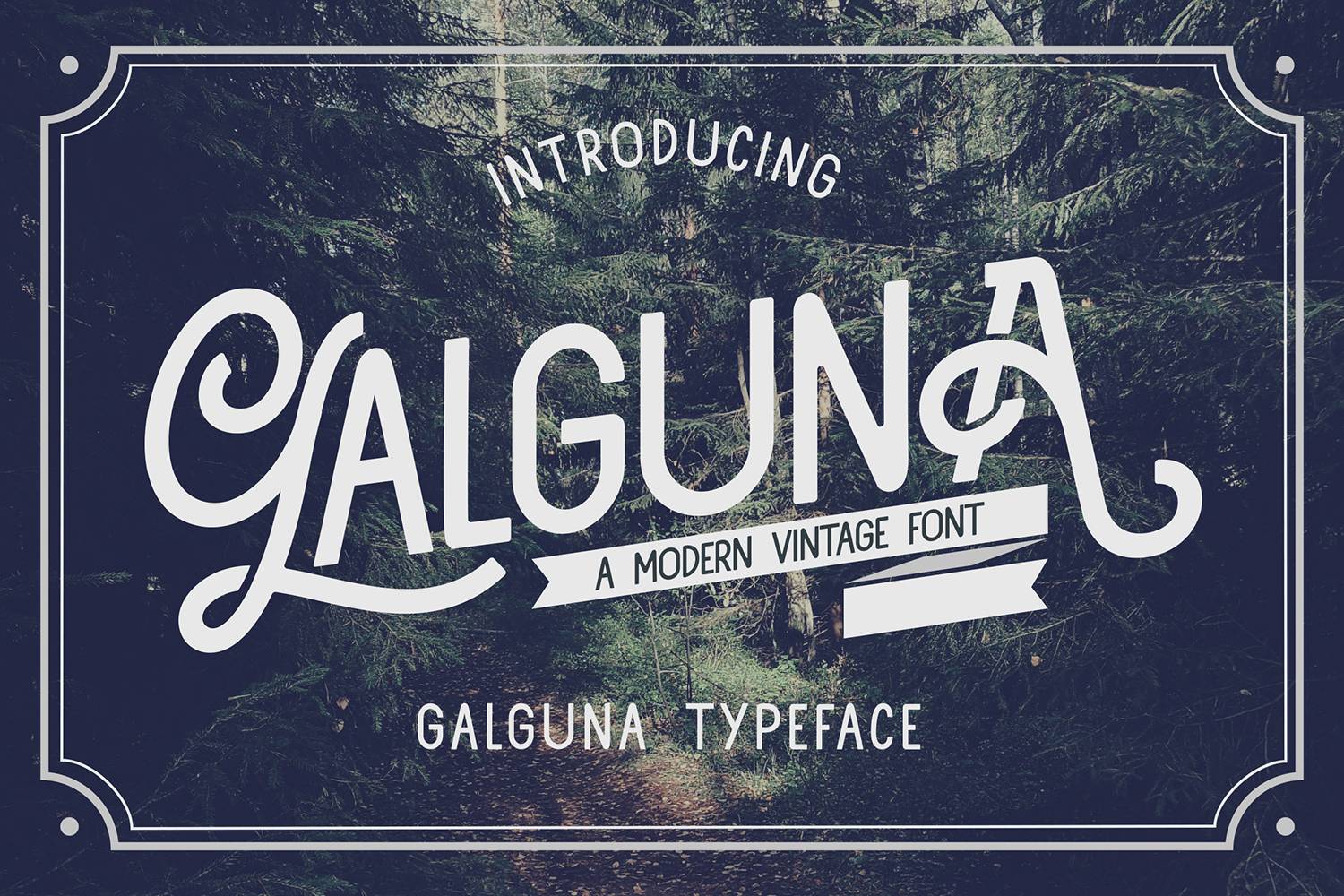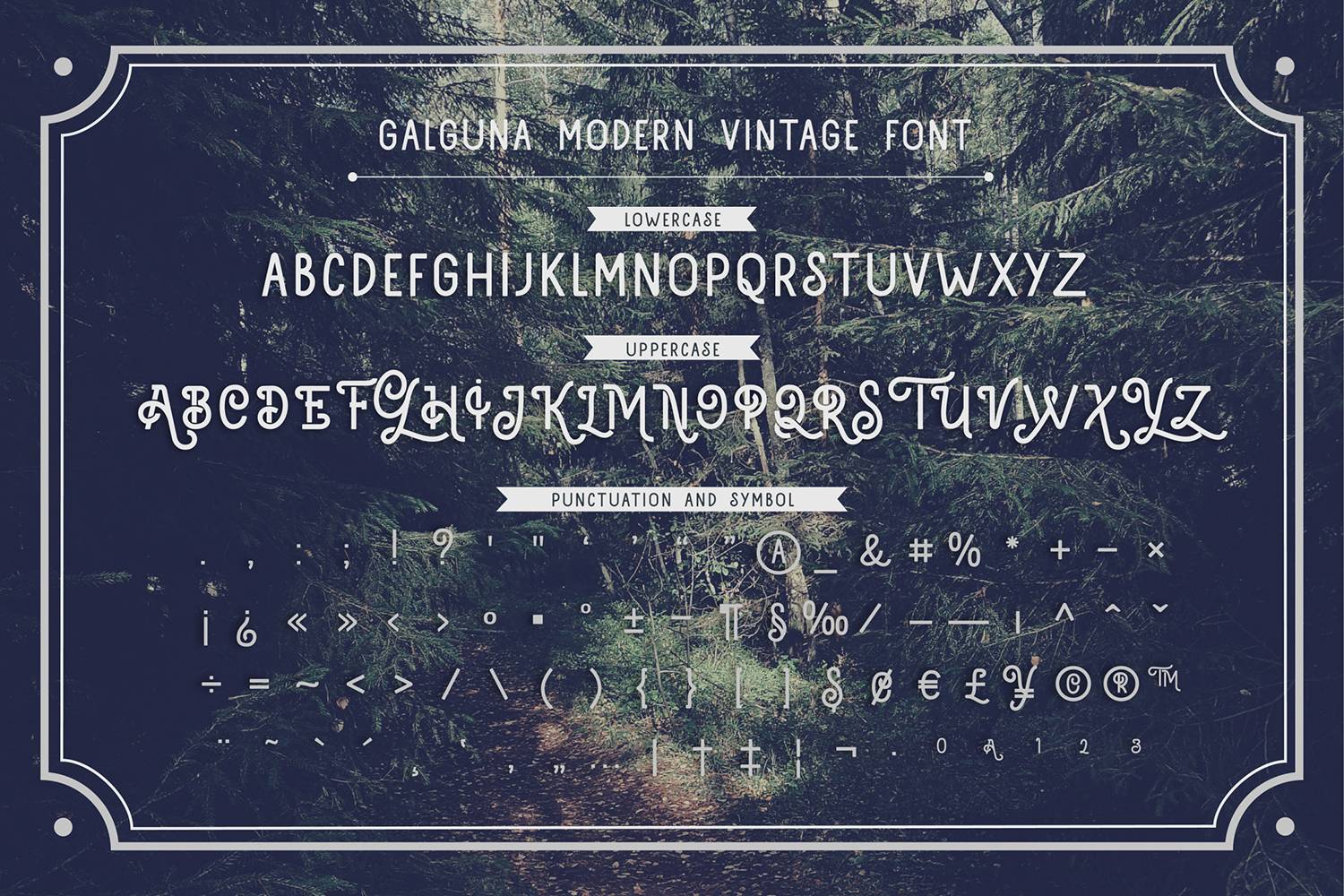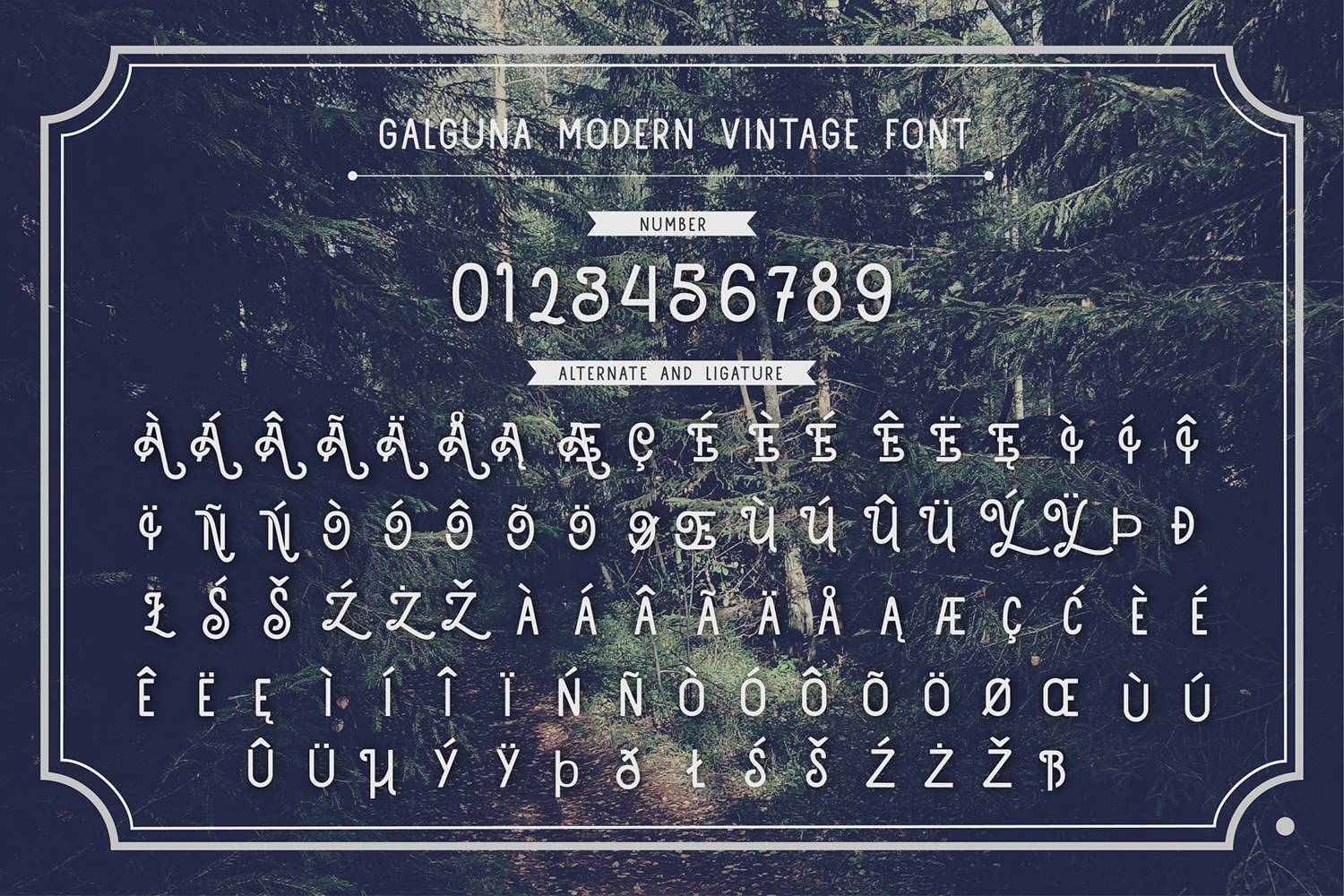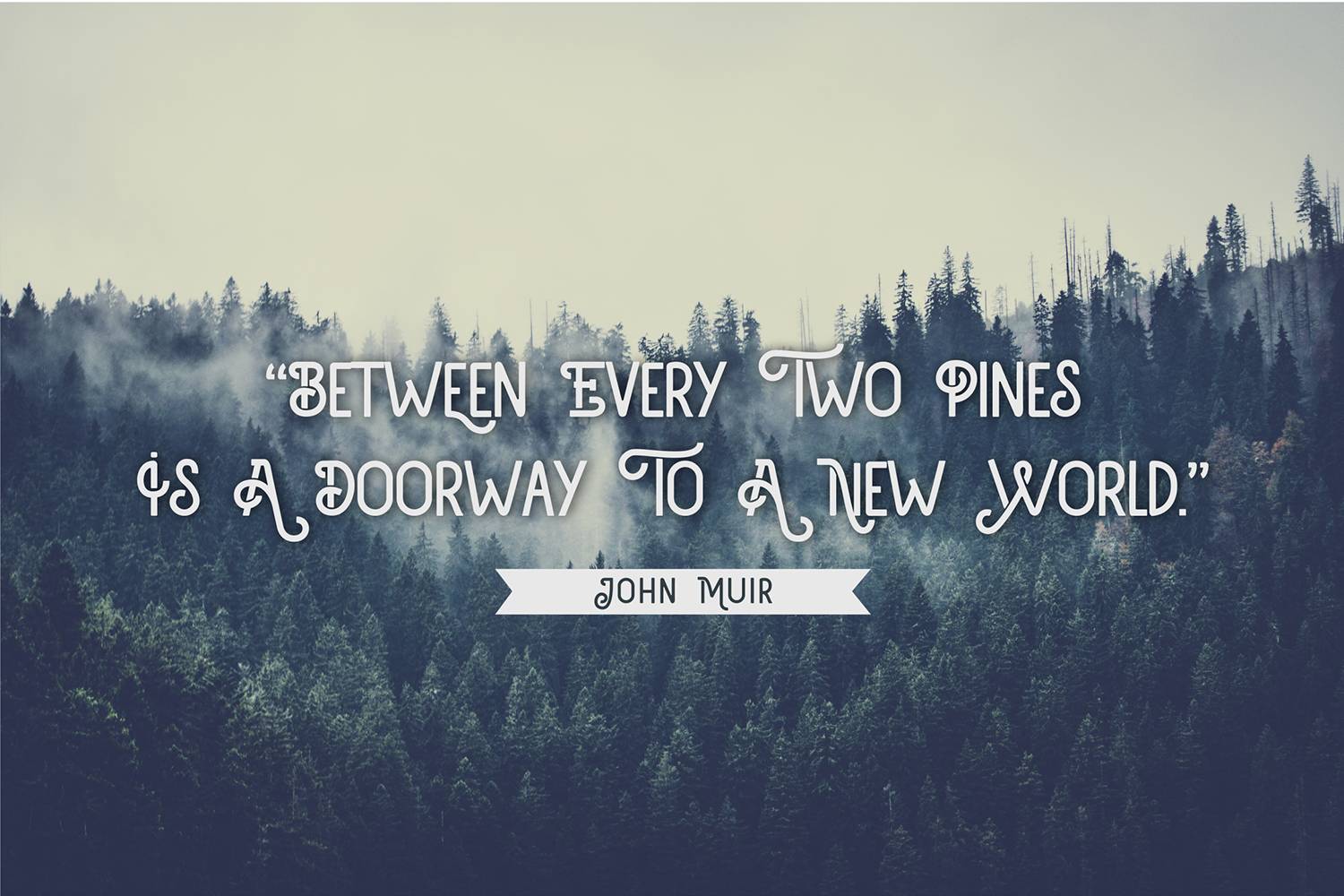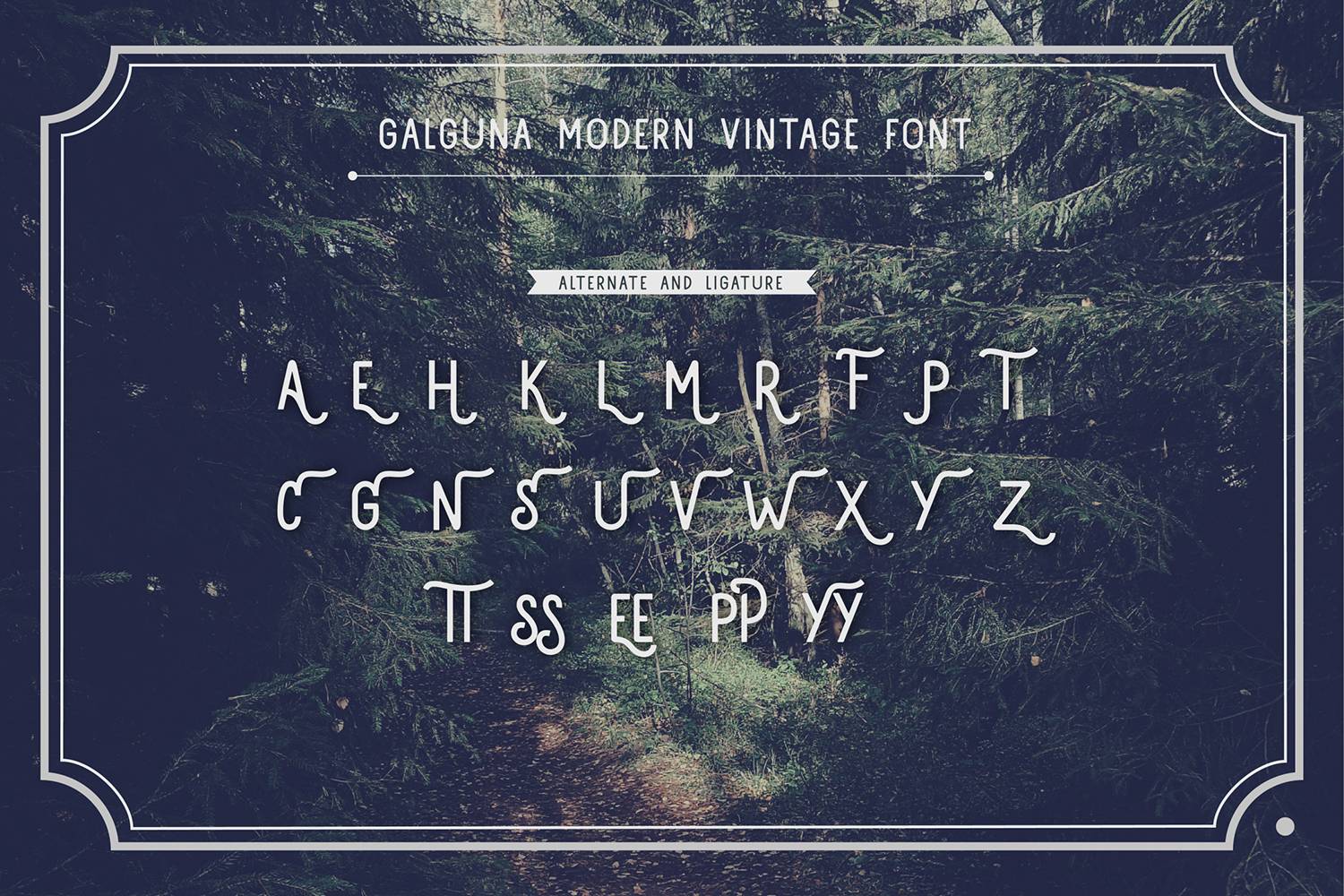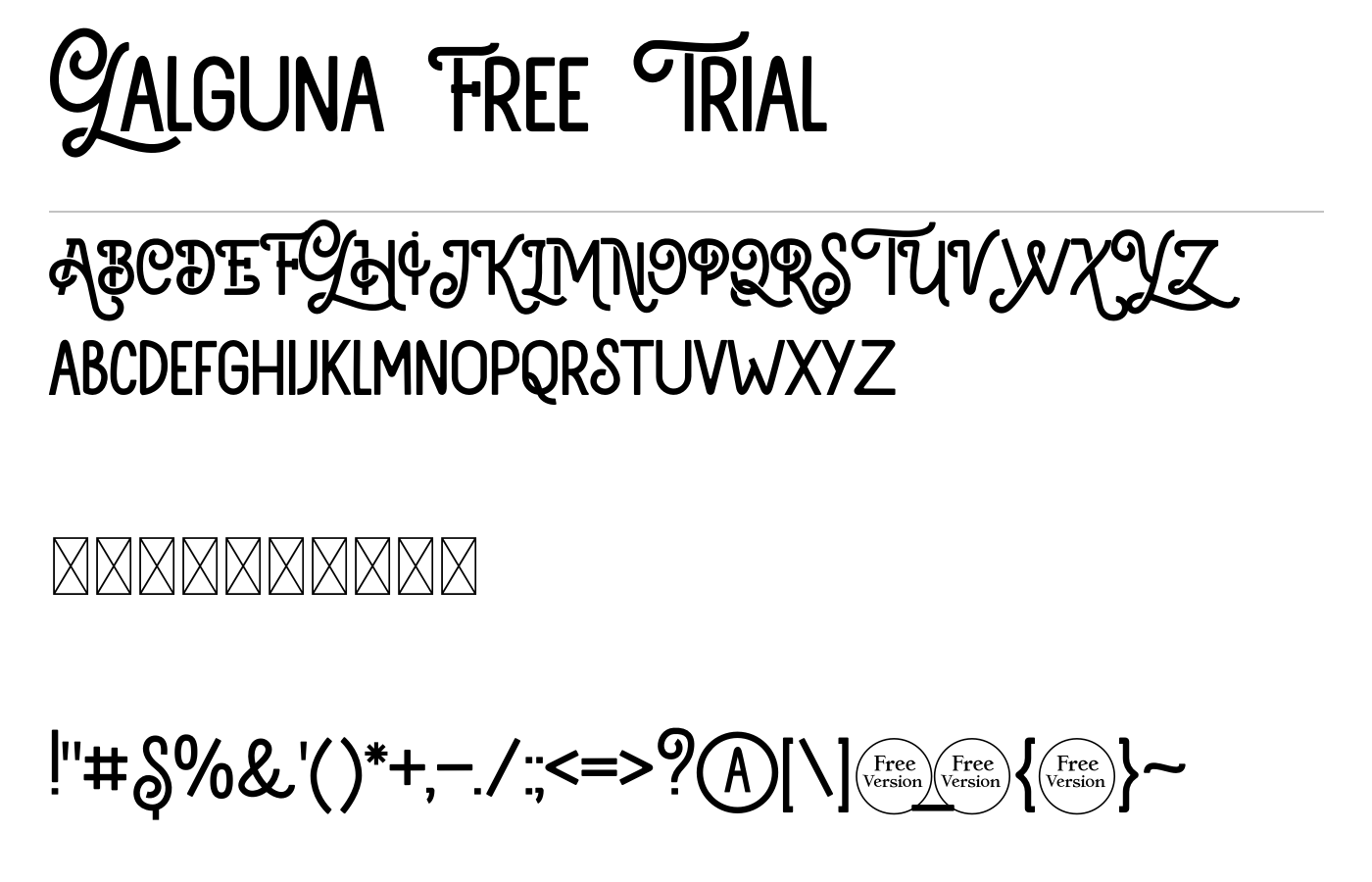
Galguna is a playful sans serif font characterized by its tall, narrow letterforms and unique decorative swirls on select uppercase letters, giving it a whimsical, vintage feel. Its clean lines combined with occasional ornamental strokes make it ideal for eye-catching headlines, logos, and branding that seek a blend of modern simplicity and artistic flair. This font works well where a distinctive yet approachable personality is desired, such as creative packaging, posters, and stylish editorial projects.
Galguna Font
About Galguna Font
| Font family | Galguna Font |